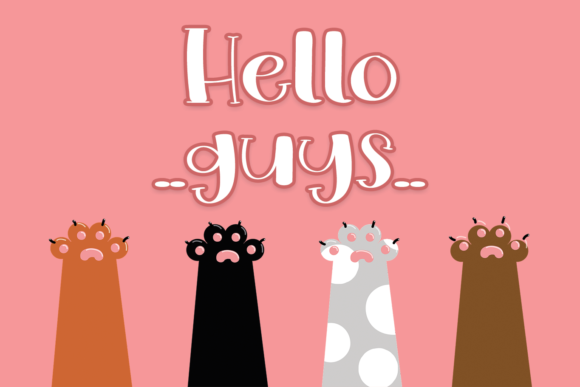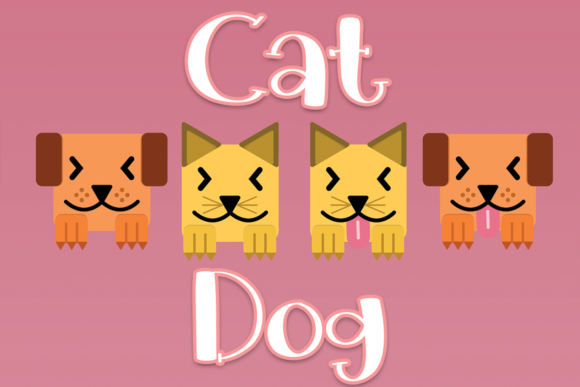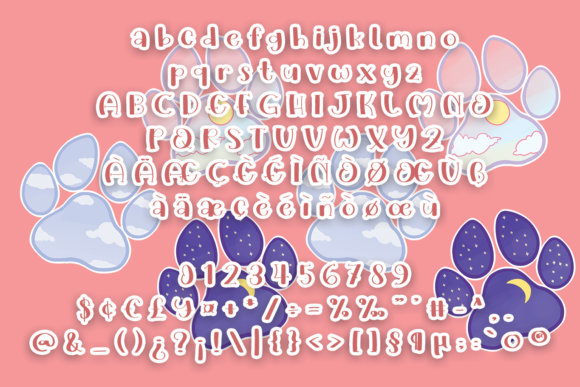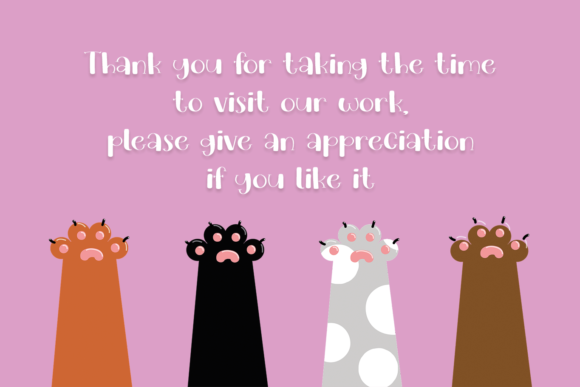
Introduction to Love Everywhere Font
Have you ever found yourself in the middle of a creative project, pouring your heart and soul into a design, only to realize that the perfect font is missing? That’s exactly what happened to many designers when they stumbled upon the Love Everywhere Font.
This delightful display font has taken the design world by storm, and for good reason. With its playful, friendly, and sweet vibe, it’s the perfect choice for any children’s activity or school project that requires a high-quality design resource. Whether you’re creating a logo, a poster, or a digital illustration, the Love Everywhere Font is sure to bring a smile to your face and a touch of authenticity to your design.
Key Features of Love Everywhere Font
- High-quality design resource perfect for creative projects, offering a unique and elegant touch.
- Comes with a transparent background, allowing for easy customization and blending with your design elements.
- Features a beautiful, hand-drawn design that exudes love and positivity, making it perfect for Valentine’s Day, wedding, or anniversary projects.
- Includes a comprehensive character set, including uppercase and lowercase letters, numbers, and punctuation marks, for a complete typography solution.
I recently had the chance to work with the Love Everywhere Font for a creative project, and I must say it was a pleasant experience. This font is a great addition to any designer’s toolbox, offering a high-quality design resource that’s perfect for various applications.
- ✨ High-quality design resource suitable for various applications
- ✨ Transparent background option for added flexibility
However, there are a few limitations to consider. The font may not be suitable for formal or professional projects, as it has a more playful and whimsical feel. Additionally, the font may not be available in as many languages as some other fonts on the market.
Overall, I’m impressed with the Love Everywhere Font. It’s a great option for designers looking for a high-quality, versatile font that won’t break the bank. Just be sure to consider the limitations and use it for the right type of project.
Getting the Most Out of the Love Everywhere Font
To get the most out of the Love Everywhere Font, use it on a transparent background to create a sense of depth and dimension. You can also use it in combination with other design elements, such as graphics and images, to create a visually appealing design. Experiment with different font sizes and colors to add visual interest to your project.
The Love Everywhere Font is a versatile design resource that can be used in a variety of creative projects, including social media graphics, blog posts, and marketing materials. Its high-quality design and transparent background make it an ideal choice for designers and non-designers alike.